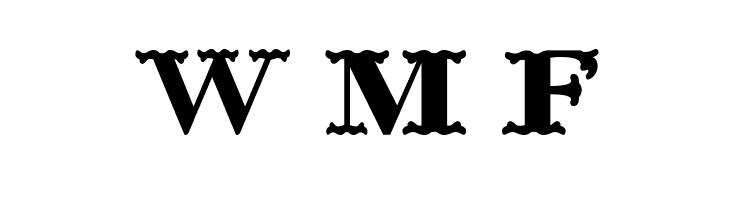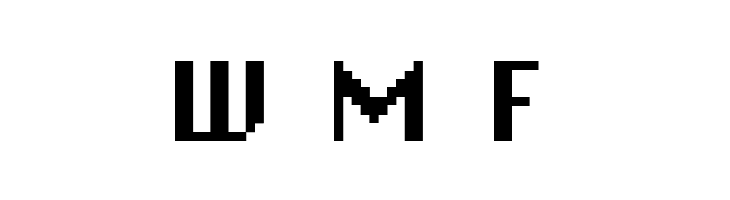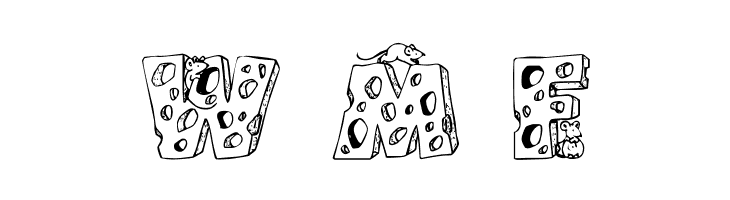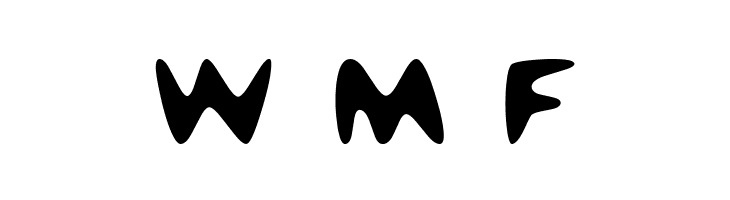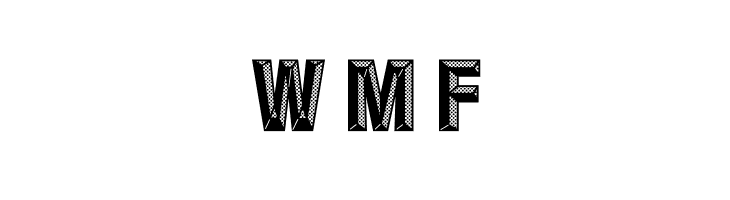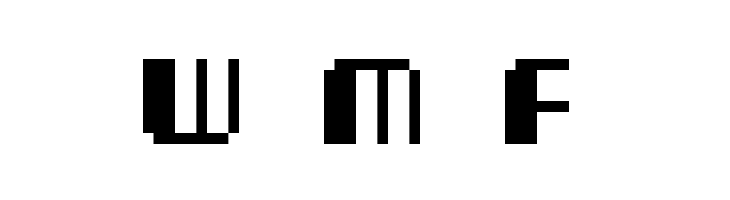
( Fonts by Daniel Gauthier )
A bold, decorative font with a textured, vintage-inspired style.
( Fonts by Christine Mauerkirchner and Rainer Grunert - PrimaFont )
A classic serif font with bold, elegant curves and pronounced serifs.
( Fonts by Glyphobet Font Foundry - Matt Chisholm - http://glyphobet.net/typography/ )
A playful and artistic font with checkerboard patterns and whimsical strokes.
A bold, cursive font with a playful and energetic style.
A flowing, cursive script font with elegant, interconnected letters.
A pixelated, retro-style font inspired by early digital displays.
A playful, bold font with thick, rounded characters and a hand-drawn feel.
A playful, bold font with quirky, rounded characters and whimsical special symbols.
A playful, bold font with rounded characters and heart motifs.
An ornate and decorative script font with bold strokes and intricate flourishes.
( Fonts by Maniackers Design - www.mksd.jp OFF SITE )
A decorative, geometric font with parallel line patterns creating a bold, modern look.
A bold, playful font with wide, slightly condensed characters.
A bold, playful font with floral motifs and rounded characters.
A whimsical collection of cartoon character icons with bold outlines and playful expressions.
( Fonts by Daniel Gauthier )
A bold, decorative font with a distressed, vintage texture.
( Fonts by Matthew Austin Petty - www.disturbed.com )
A whimsical, hand-drawn font with playful, irregular letterforms and unique illustrations.
( Fonts by Maniackers Design - www.mksd.jp OFF SITE )
A playful, rounded, and slightly italicized font with a modern touch.
( Fonts by Maniackers Design - www.mksd.jp OFF SITE )
A playful, handwritten Japanese font with rounded, casual strokes.
( Fonts by Maniackers Design - www.mksd.jp OFF SITE )
A playful, childlike font with rounded, consistent strokes and a slight slant.
( Frogii`s Fonts )
A decorative dingbat font with cartoon children illustrations.